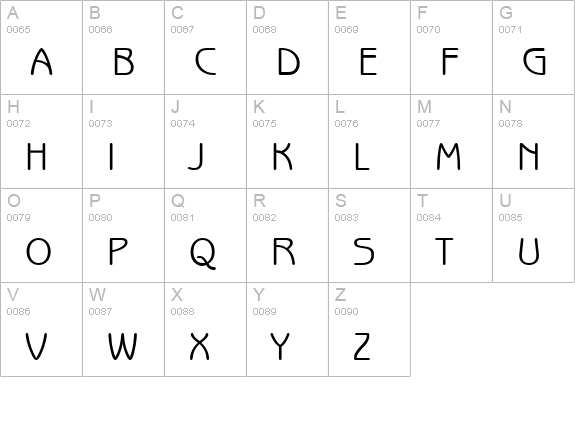
Beagle Normal is the standard, neutral variant in the Beagle typeface family \xE2\x80\x94 well suited to general body text, paragraphs, and standard typographic work.
Beagle Normal font is a sophisticated and modern typeface that exudes elegance and style. With its clean lines and timeless design, Beagle Normal is the perfect choice for a wide range of design projects, from branding to advertising. This versatile font is easy to read and adds a touch of class to any project. The best part? Beagle Normal font is available for free download at FontsMarket.com. Take advantage of this incredible offer and enhance your designs with the beauty and elegance of Beagle Normal font. Don't miss out on this opportunity to elevate your design work with this stunning typeface. Download Beagle Normal today and let your creativity shine!